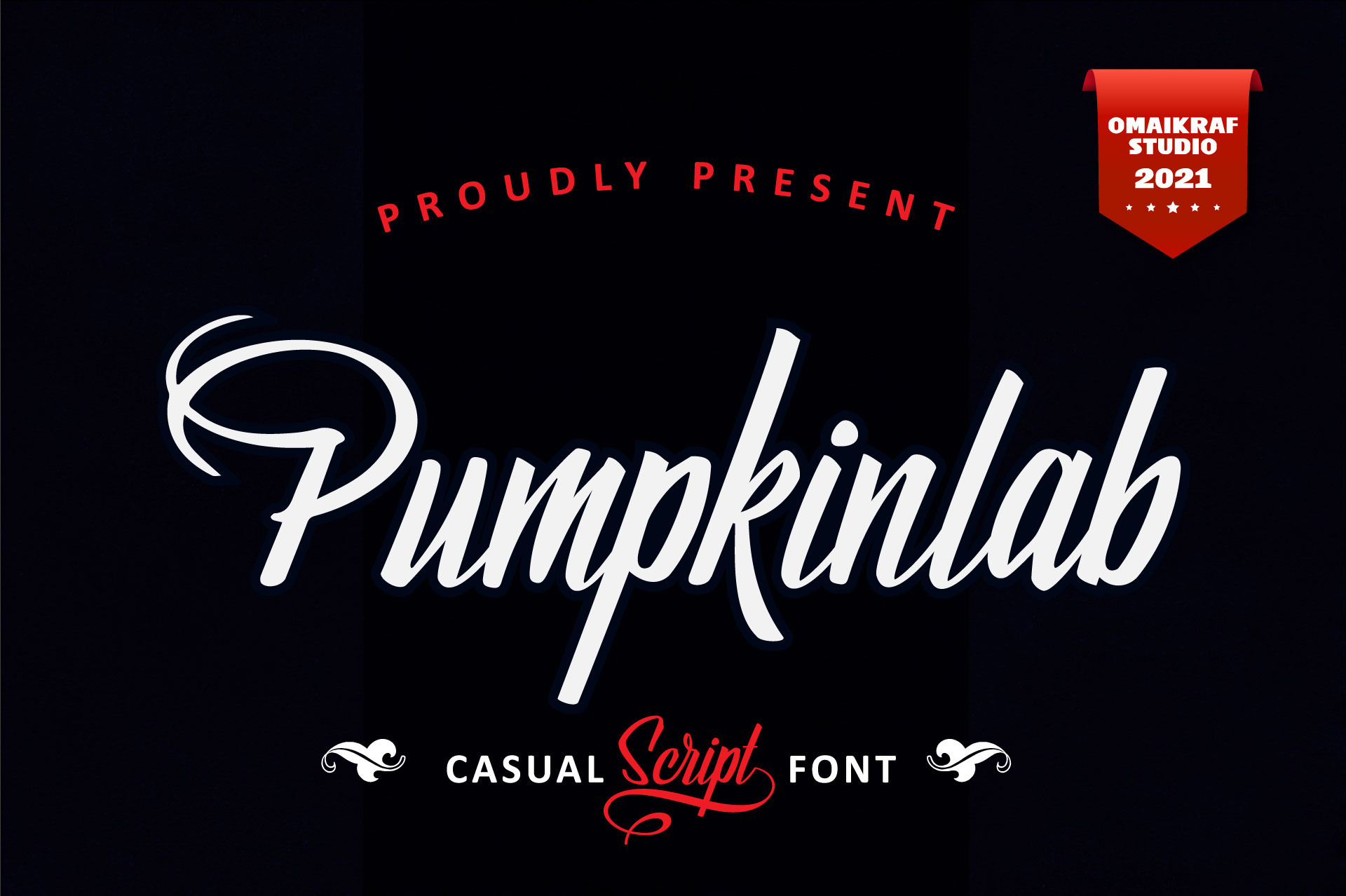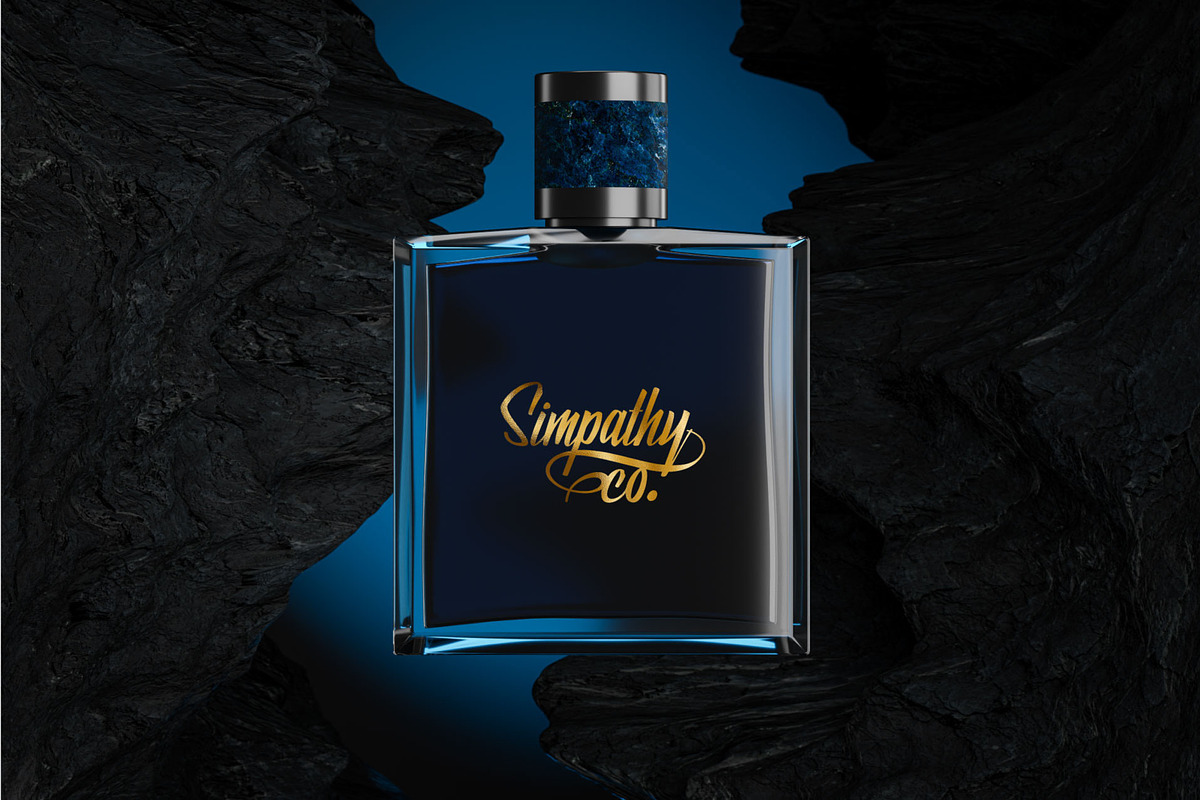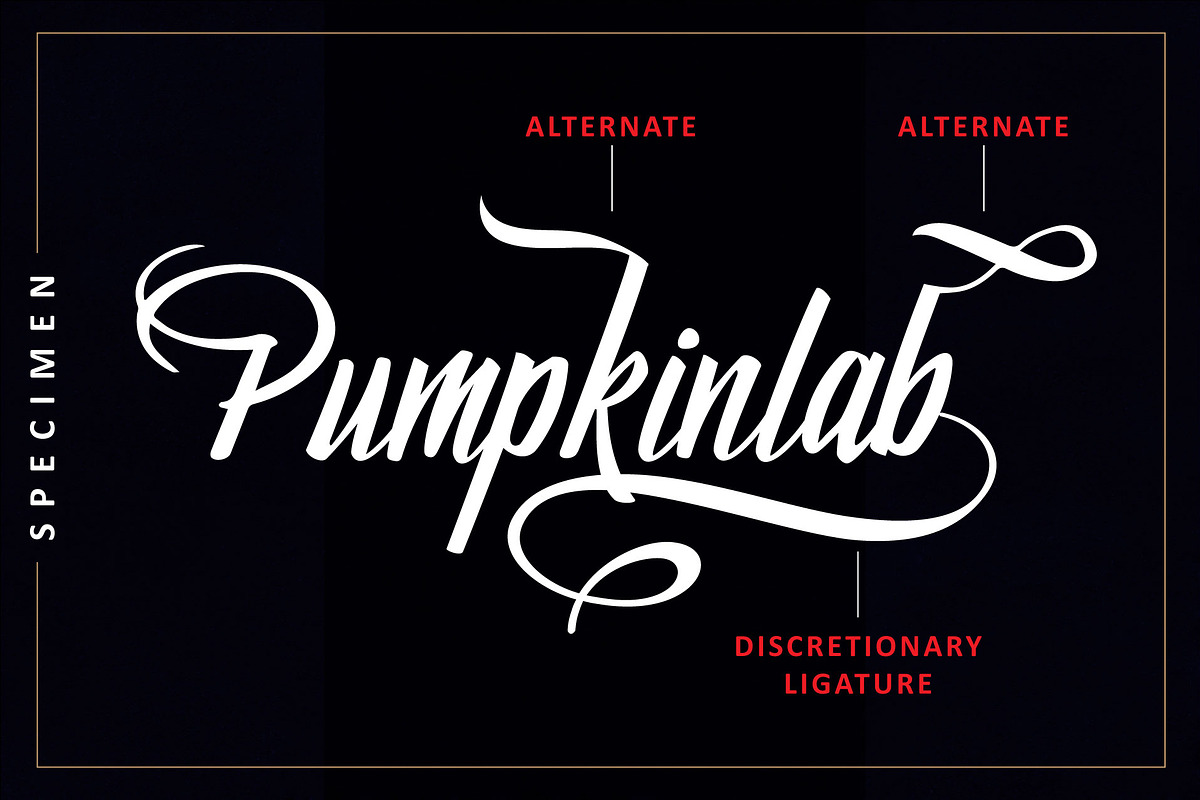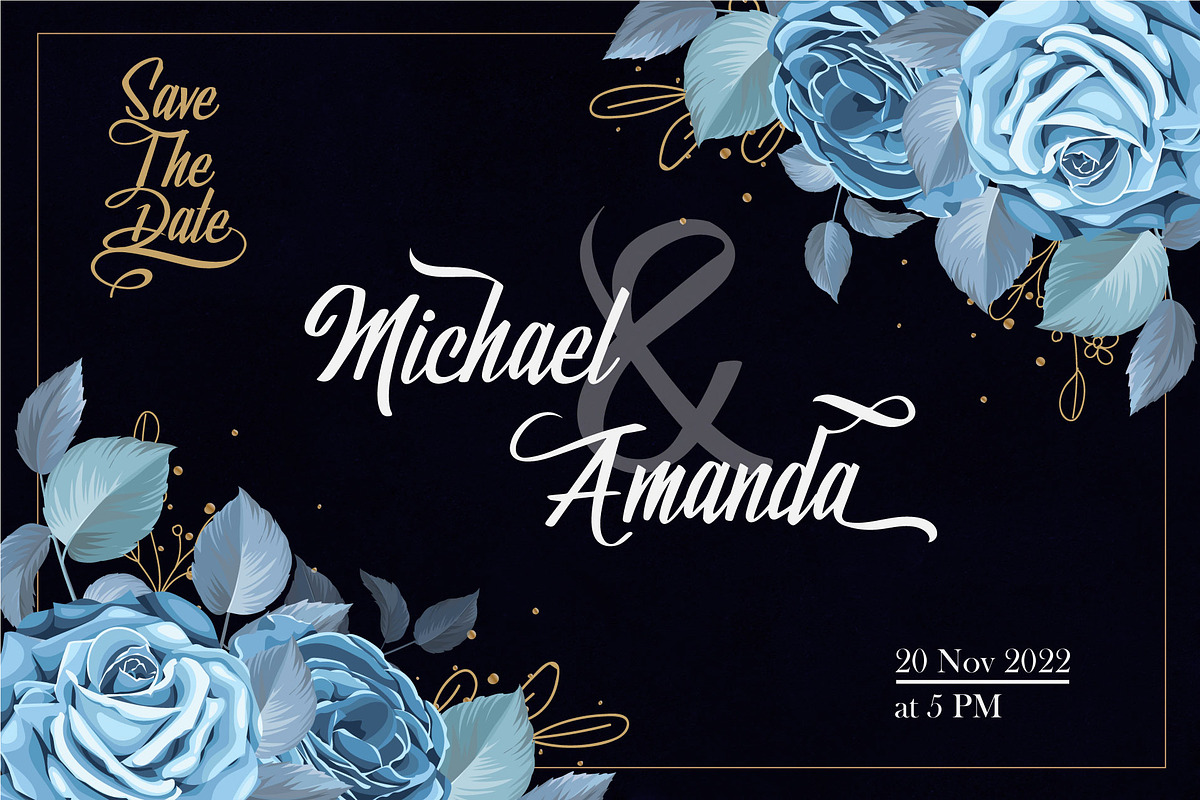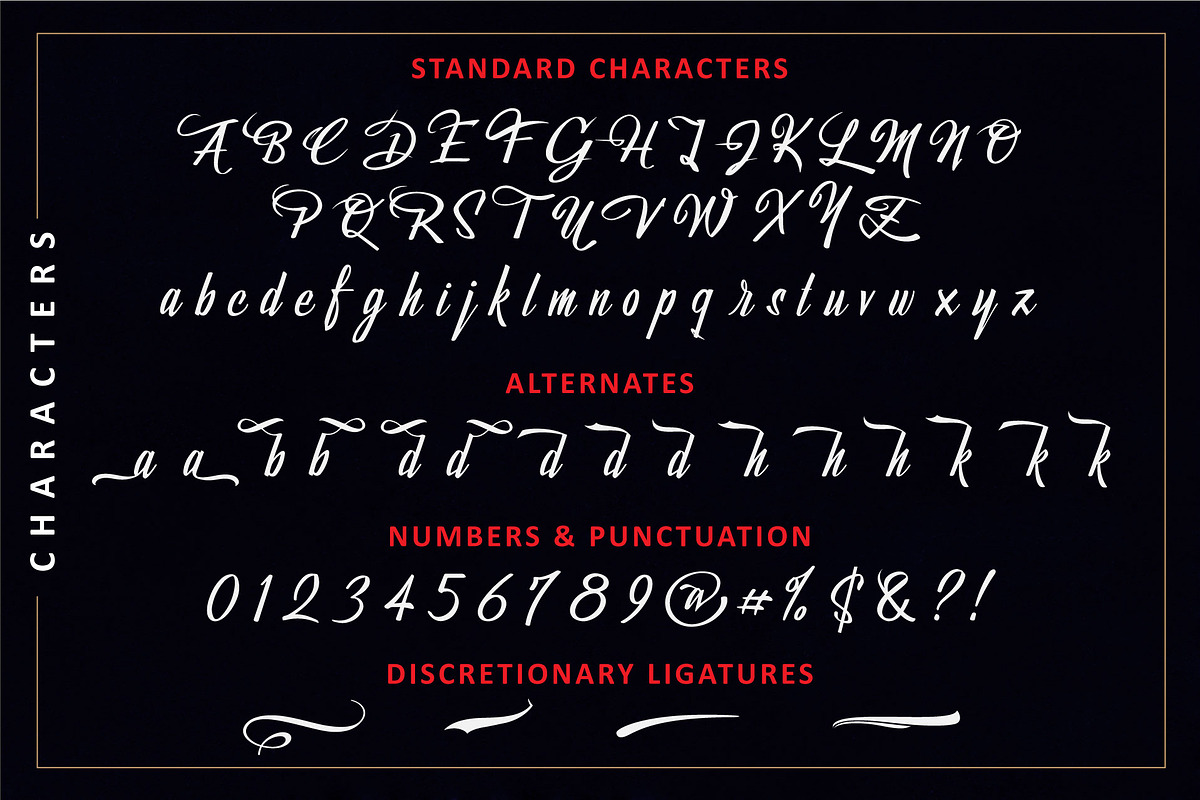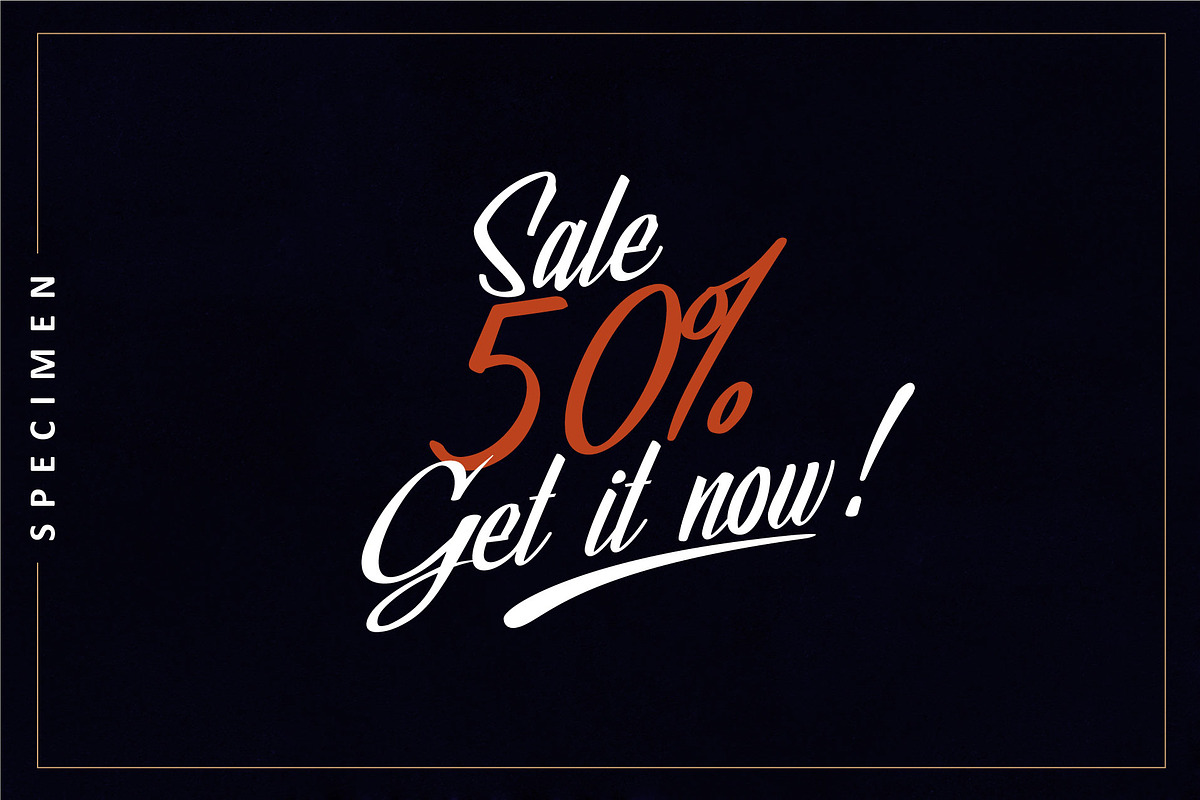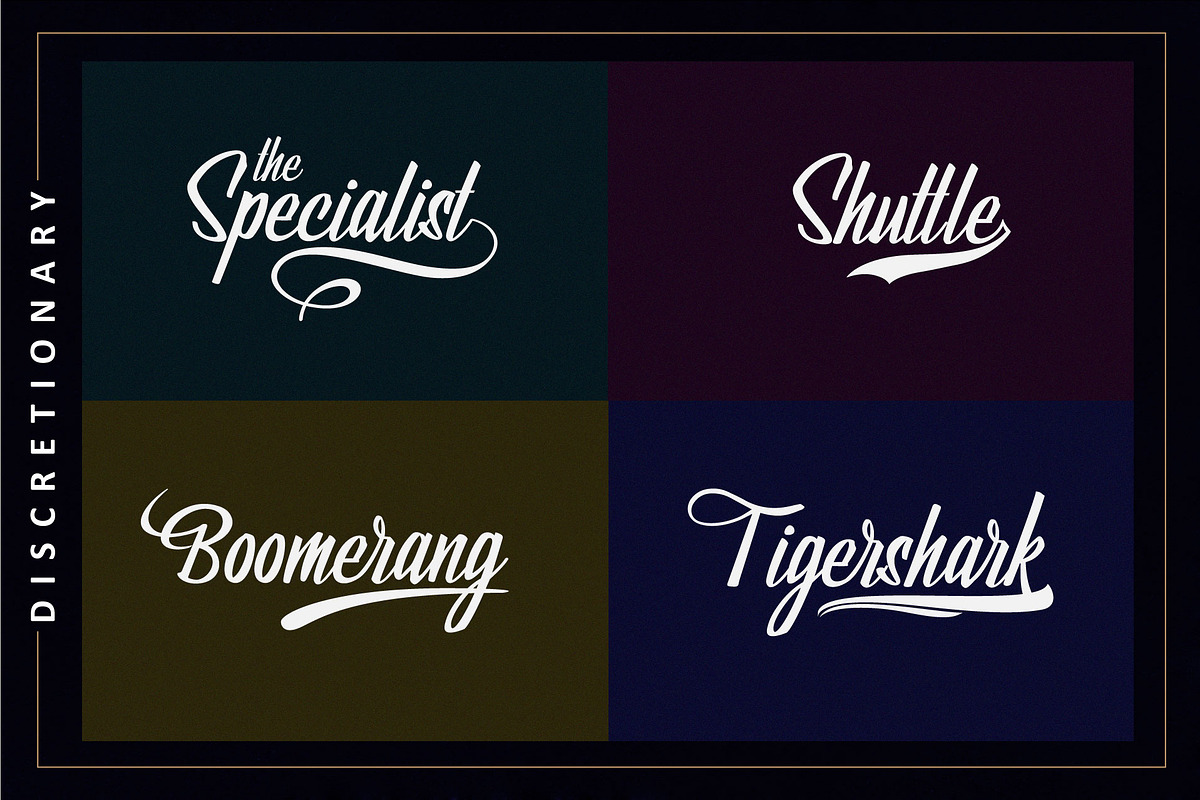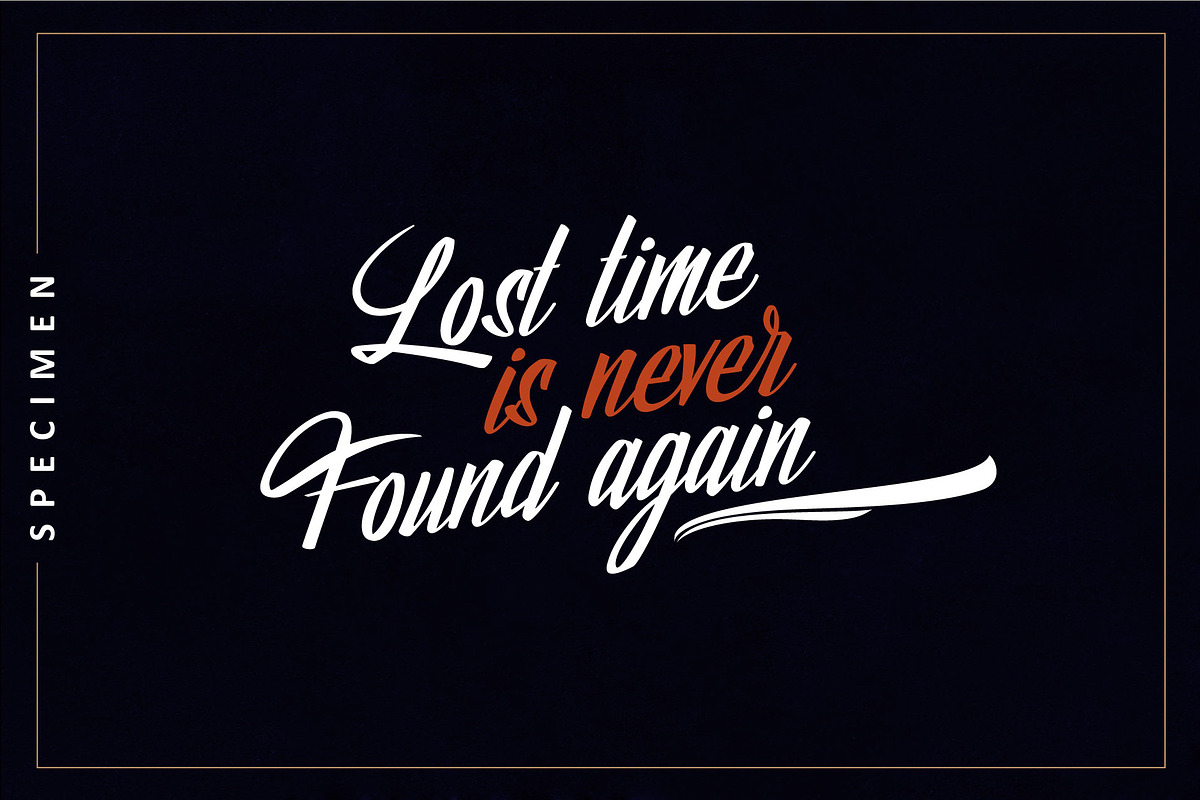
Pumpkinlab | Casual Handwritten Font
Hi! Pumpkinlab is a casual handwritten fonts that looks great on a wide range of projects. With combination of ligatures and alternates that can give variety of styles on your project.